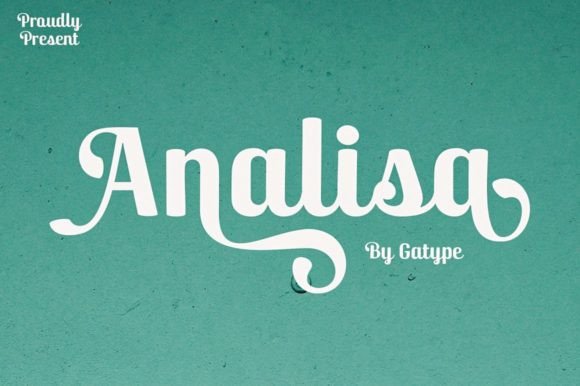
Behold the allure of Analisa Font, a glorious creation from gatype, poised to elevate your creative endeavors to unprecedented heights. This modern display font, meticulously crafted with unwavering precision, stands as a testament to artistic brilliance, ready to infuse your designs with a touch of magic.
With Analisa Font, you'll discover a world of endless possibilities, where your imagination knows no bounds. Whether you seek to create captivating CD covers that resonate with your audience or bring life to your watercolor designs with unparalleled grace, this font is your ultimate companion. Its effortless charm extends to blog headers, branding projects that demand attention, and T-shirts that speak volumes about your unique style.
Unleash your creativity and let Analisa Font guide you as you craft logos that leave a lasting impression, greeting cards that warm hearts, and titles that command attention. Its versatility extends to packaging designs that elevate your products, wedding designs that exude elegance, and social media posts that captivate your followers.
Harness the power of Analisa Font to transform your product designs into masterpieces, stationery that reflects your exquisite taste, and advertising campaigns that ignite conversations. Its beauty shines through in clothing designs that turn heads, book covers that intrigue, business cards that leave a lasting impression, and merchandise that showcases your brand's identity.
Embrace the boundless potential of Analisa Font for handmade invitations that convey heartfelt emotions, quotes that inspire and uplift, and countless other creative projects that await your artistry. Let this font ignite your passion and propel your creative vision to new heights.